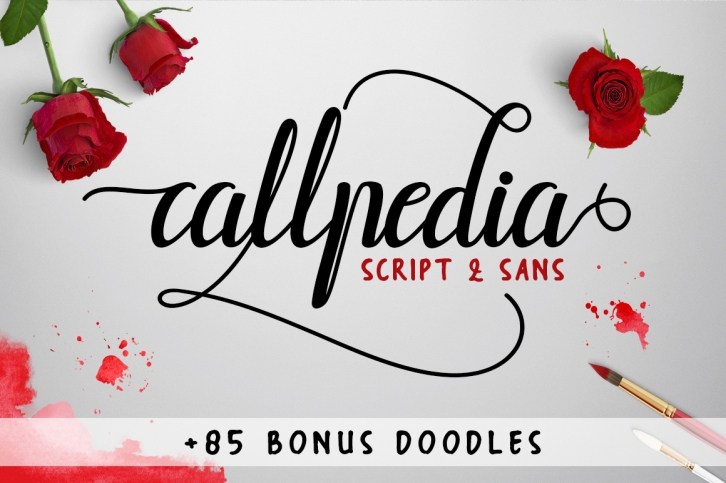
Callpedia 2 Styles + Bonus is a great font that was designed by Apon & Stipline Co. Imagine the amount of combinations you can create using this font! The archive is 19.79 MB and it was released on May 28, 2016. Callpedia 2 Styles + Bonus looks beautiful on wedding invitations, greeting cards, logos, posters, labels, t-shirt designs, logos, business cards and is perfect for use in ink or watercolor works, fashion, magazines, packaging and food menus, children's books and more!